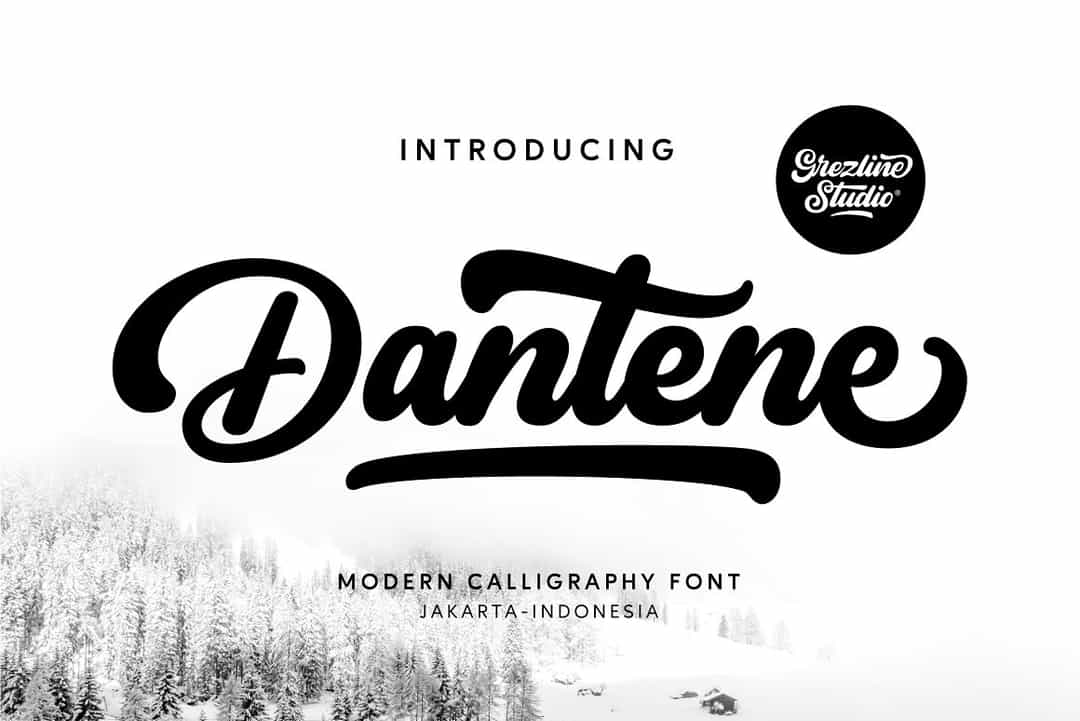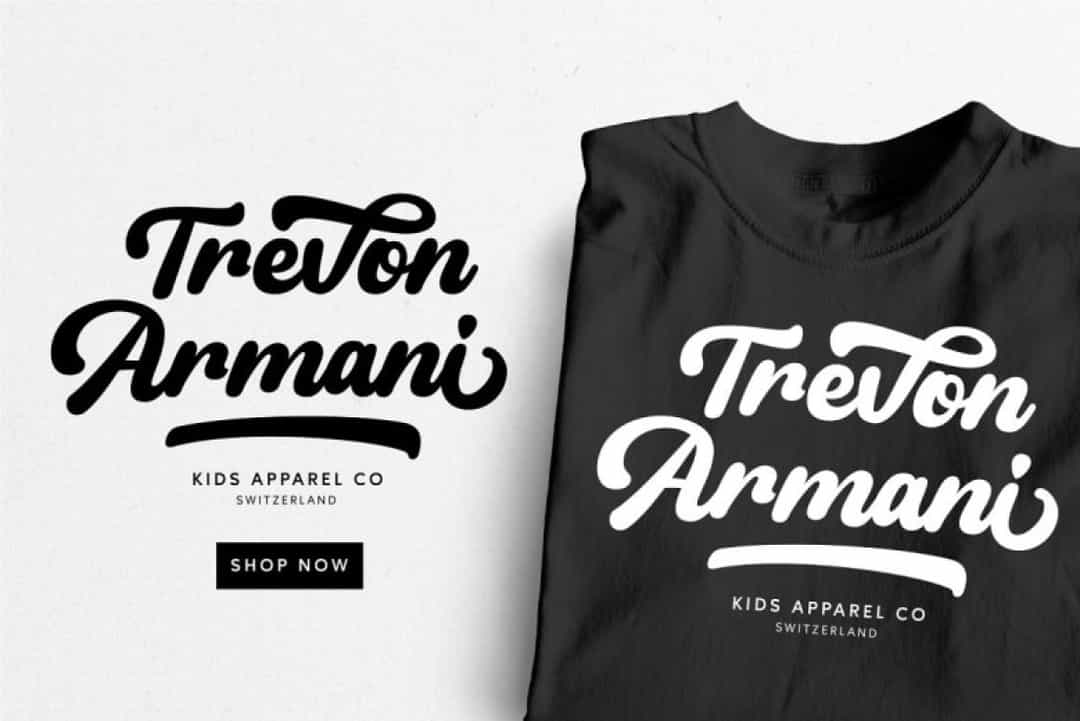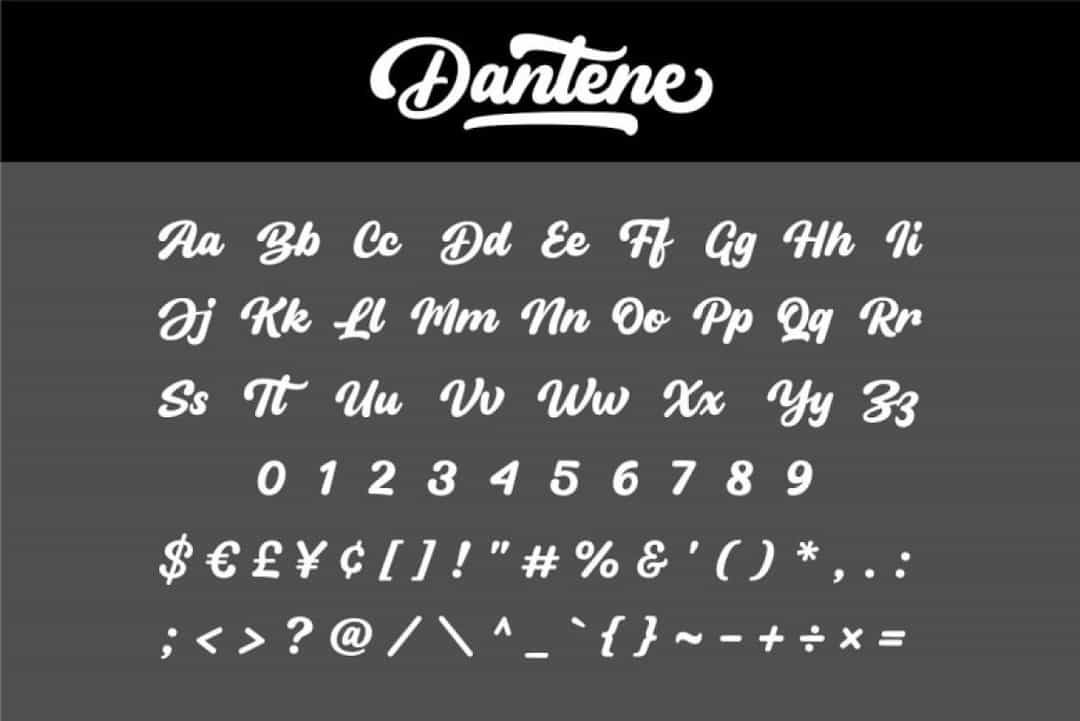
Dantene is a contemporary script typeface which I designed with care. This font can be used for typography, logotypes packaging for products and t-shirt design as well as label posters as well as headings letterheads signage or anything requiring a contemporary appearance. Furthermore, you can combine multiple fonts together for an original and modern aesthetic in your designs.